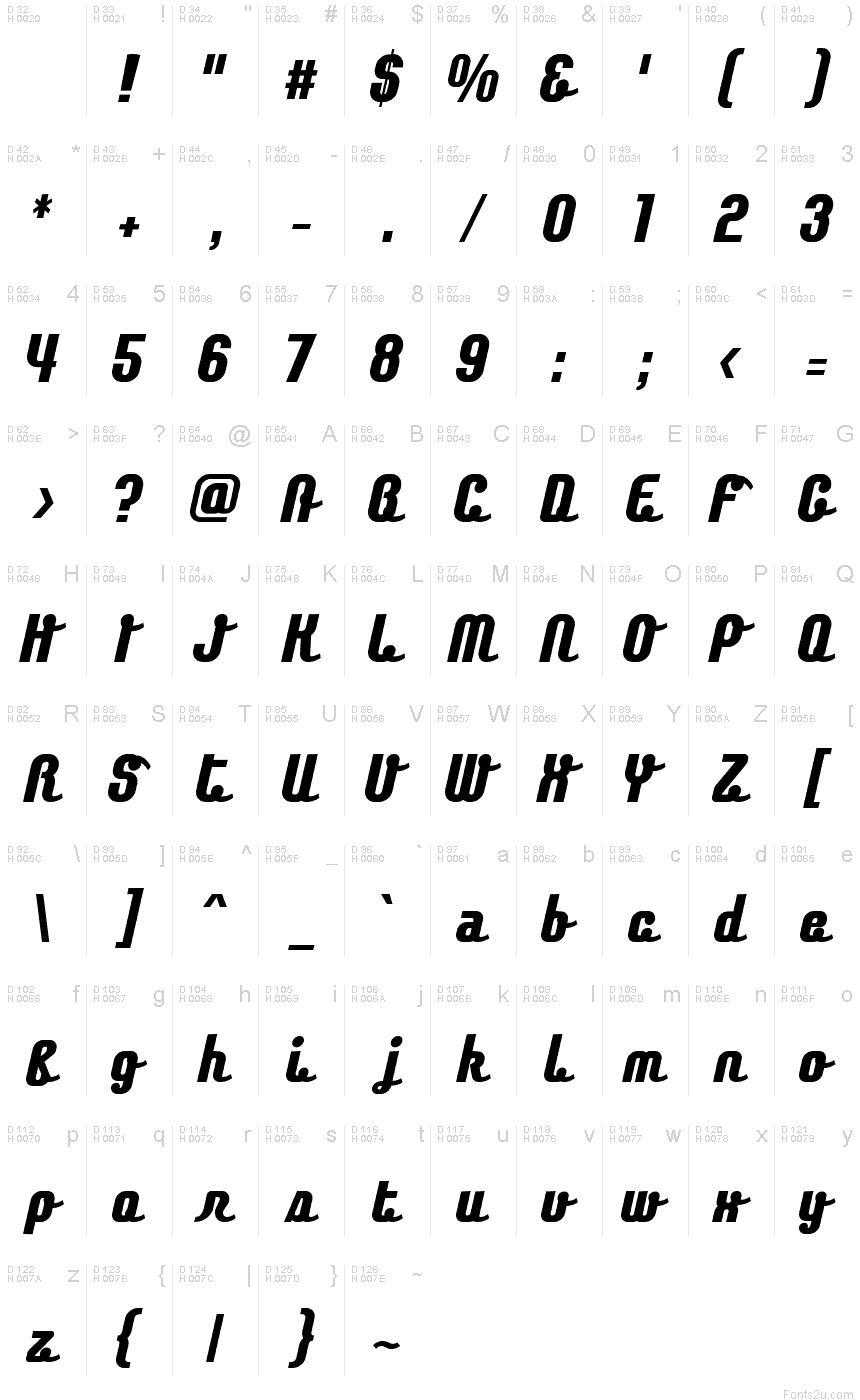
Chainex Bold by Masato Shimojima of Design Studio Creation is a free bold brush script with the sweep of hand-painted sign lettering and a pronounced forward slant. Broad strokes form oversized loops before snapping into tapered ends.
A streetwear label and a dessert package could both use its mix of muscle and flourish, one for attitude and the other for an indulgent handwritten accent. It also suits music posters and event graphics, especially when the artwork leans toward movement and spectacle. In editorial design, its broad curves can turn a magazine opener or feature title into part of the page's illustration.